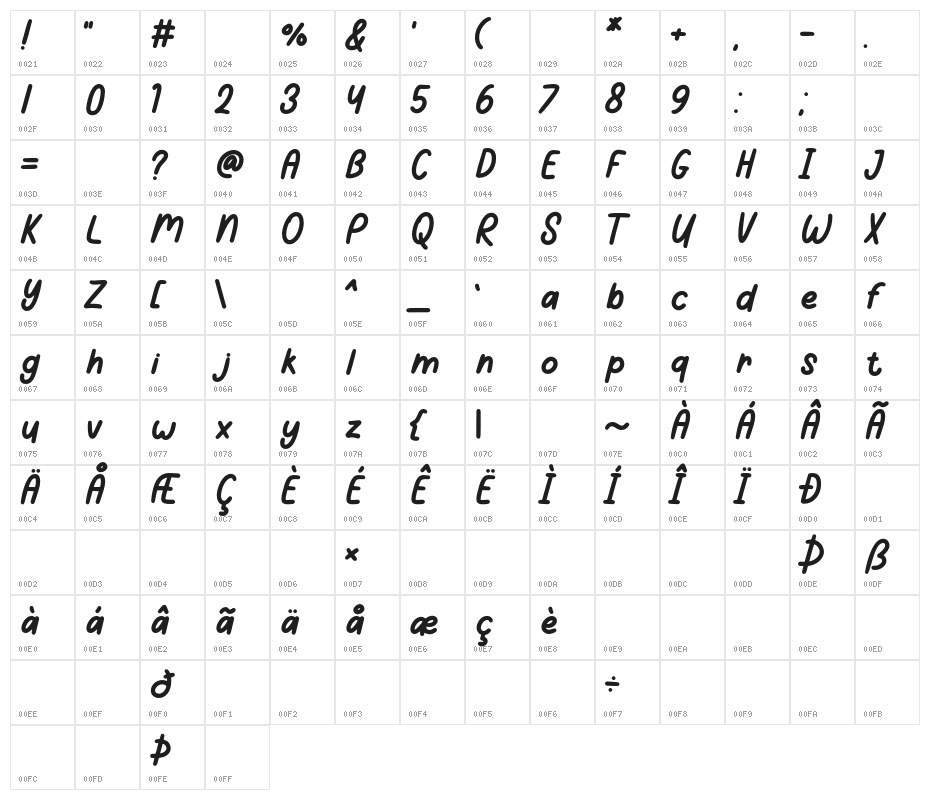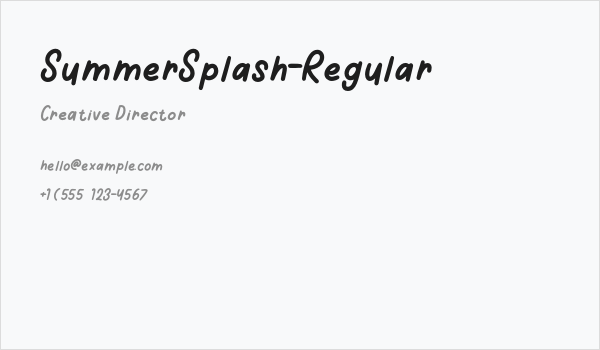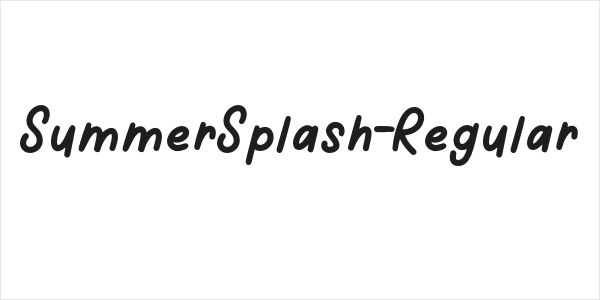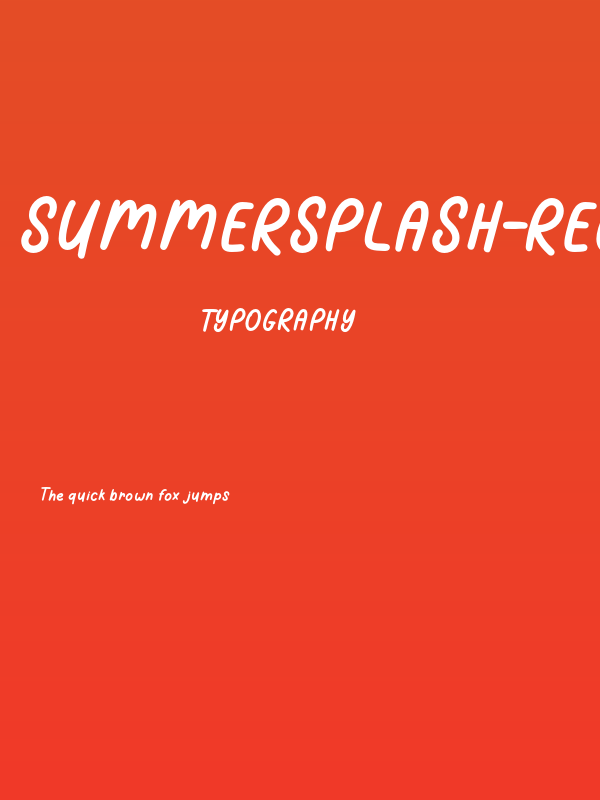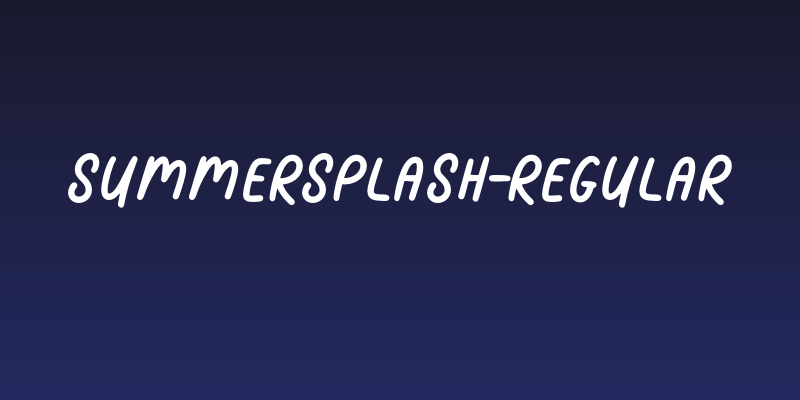
SummerSplash-Regular Font
SummerSplash-Regular Description
This font features a playful and energetic style, characterized by its smooth, rounded edges and consistent stroke width. The letters are slightly slanted, giving a casual and informal feel, reminiscent of handwriting. The uppercase and lowercase letters maintain a uniform appearance, with a slight bounce that adds to its charm. The numerals and special characters are crafted with the same attention to detail, ensuring readability and coherence across all characters. This font is perfect for projects that require a friendly and approachable aesthetic.
| Overall Style | Casual |
| Use Case | Logos, Headlines, Informal Text |
| Proposed Projects | Ideal for greeting cards, children's books, playful branding, and social media graphics. |